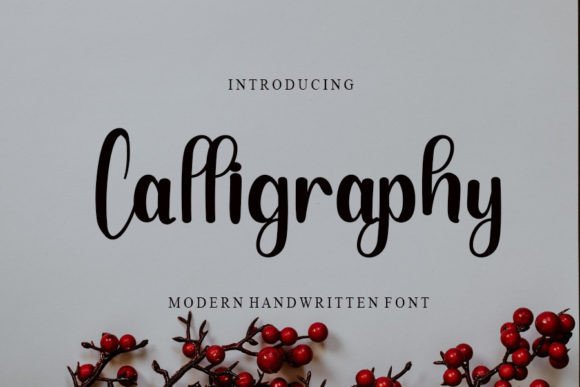
About Calligraphy Font
“Calligraphy” is a cool handwritten font that exudes a modern vibe while maintaining a spotless form. It takes inspiration from classic calligraphy, striking a harmonious balance between not being too thin or too thick. This font is meticulously designed to elevate the beauty of your projects and can be effectively utilized in a wide array of design contexts.
One of the defining characteristics of “Calligraphy” is its ability to seamlessly blend classic calligraphic elegance with contemporary aesthetics. The font’s design captures the essence of calligraphy and infuses it with a fresh and modern style. This versatility makes it an excellent choice for a multitude of creative applications.
Imagine using “Calligraphy” for branding and logo design, where it can convey both timeless elegance and modern sophistication. Envision incorporating this font into your digital and print materials, adding a touch of refined beauty to your projects. “Calligraphy” can also serve as a valuable asset for creating stylish typographic artwork, quotes, and more.
In conclusion, “Calligraphy” is more than just a font; it’s a design resource that skillfully combines the best of classic calligraphy and modern aesthetics. Its balanced and varied form makes it a versatile choice for diverse design projects where beauty and sophistication are desired. Embrace “Calligraphy” as a font that elevates your creative work, allowing you to achieve a harmonious blend of classic and contemporary design elements.